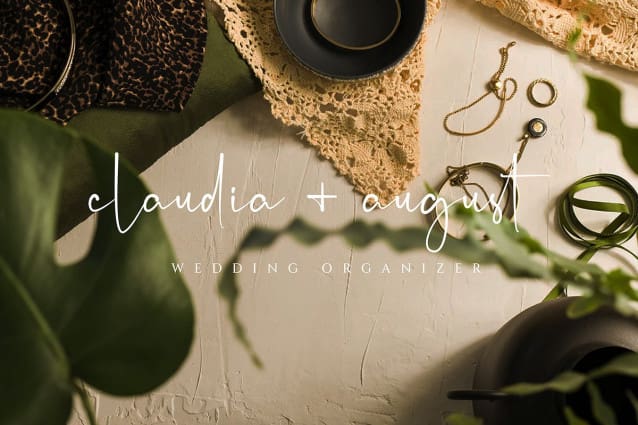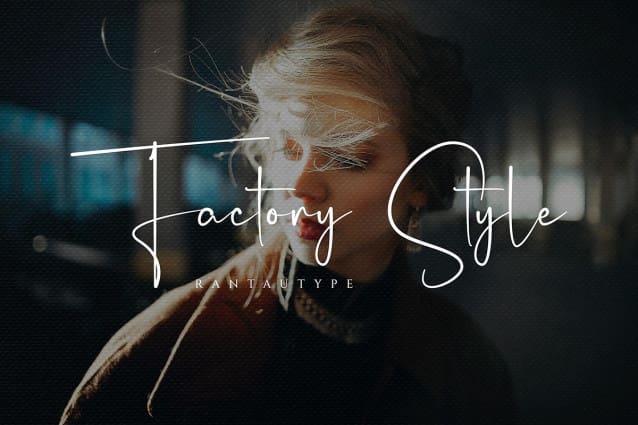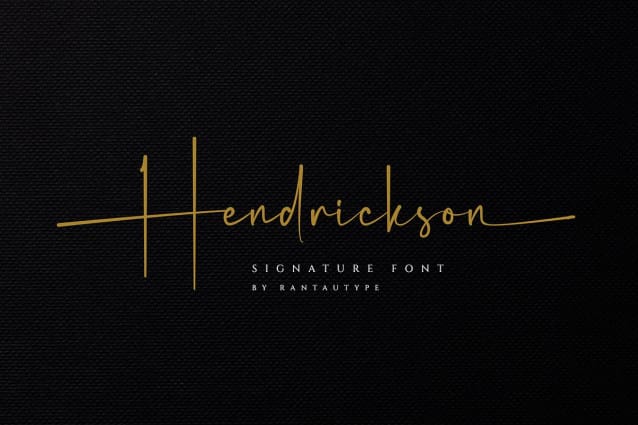
Hendrickson Signature Font
Hendrickson Signature Font – This font is elegant style which can be interpreted professional. we keep this font looks elegant, luxury, premium, modern, readable, stylish, feminine, girly, catchy and easy to use also included with more swash. Hendrickson Signature is the great choice for watermark on photography, signature or signature logo design, quotes, album cover, magazine, business card and many other design project. Hendrickson here to make your work to high level!!!